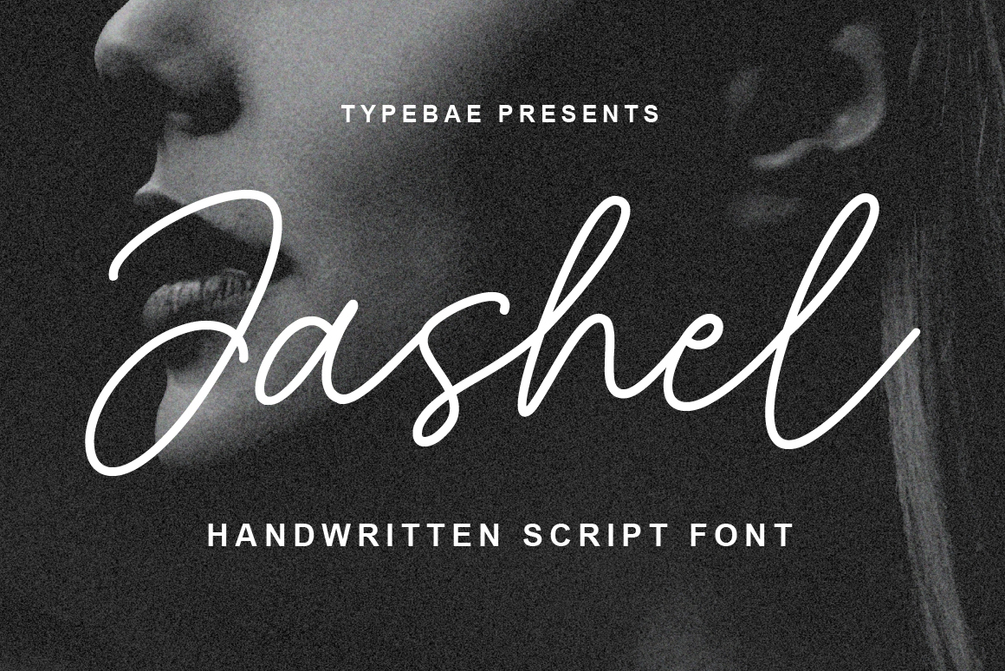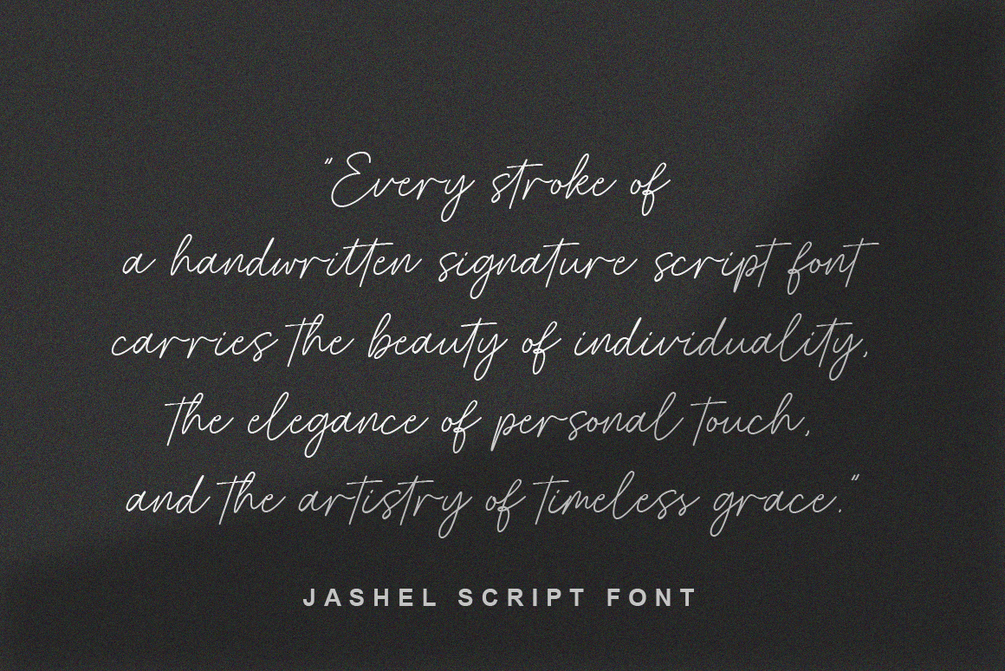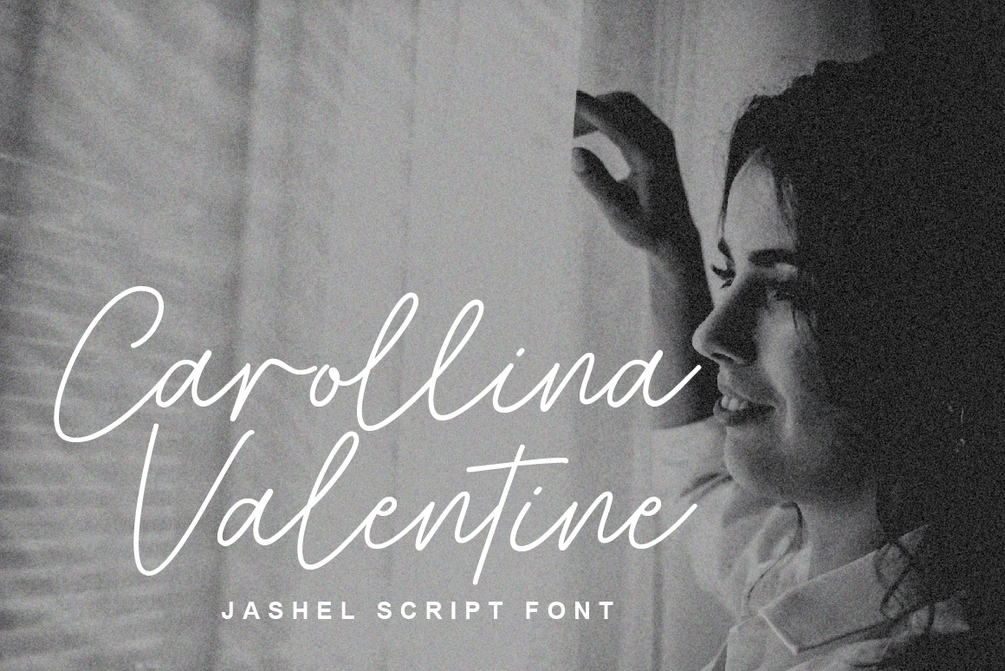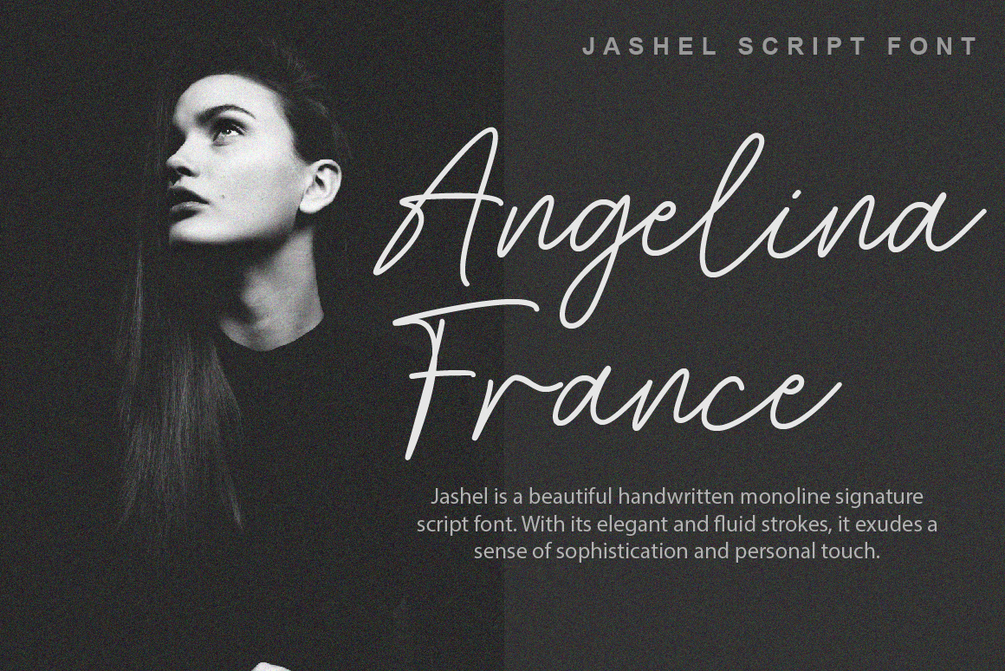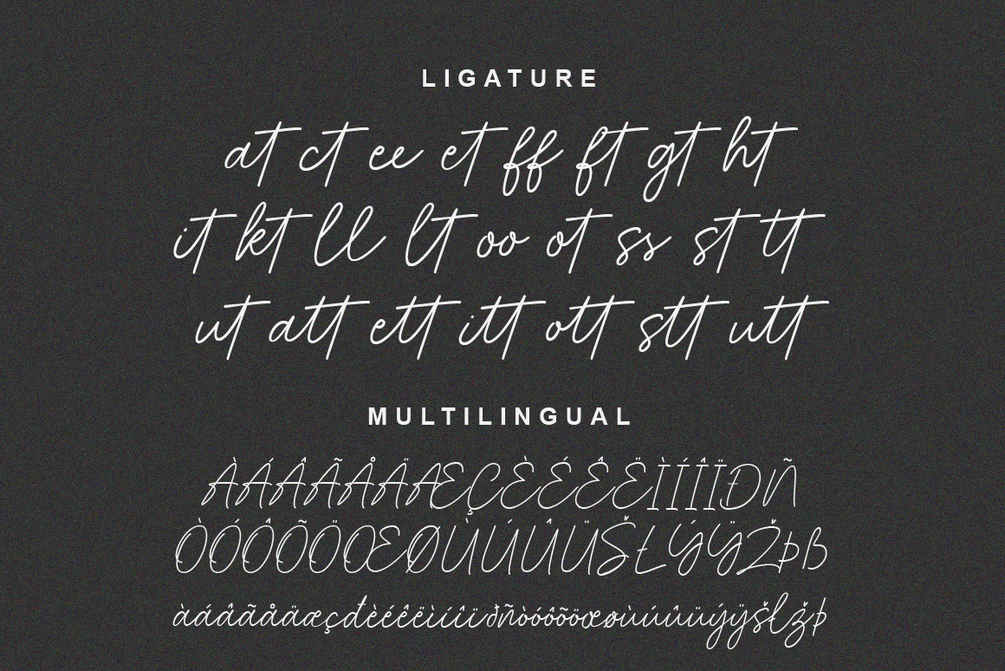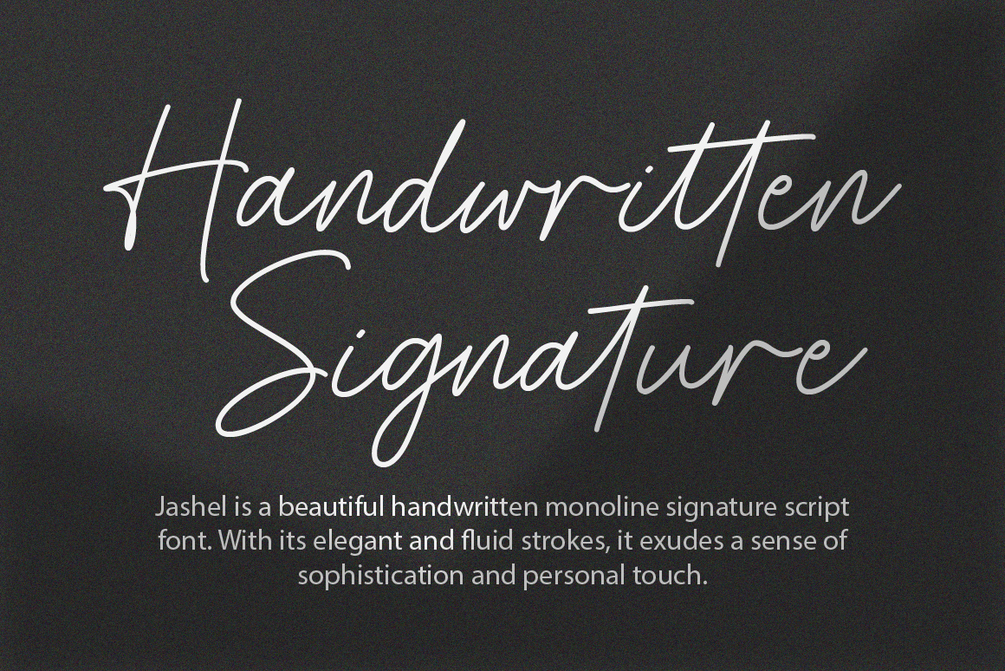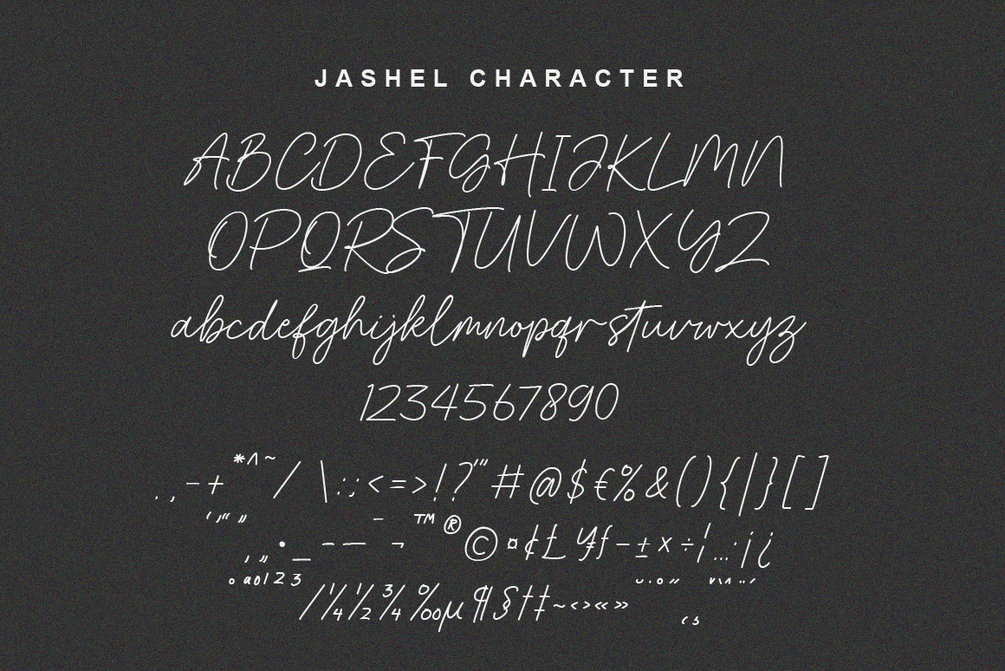
Jashel
Jashel Font is a stunning handwritten signature script font. With its graceful and flowing lines, this font closely resembles the strokes of a carefully crafted hand signature. Whether used for branding, logos, invitations, or other creative endeavors.
• Standard alphabet and punctuation
• Ligature feature
• Multilingual Support: Afrikaans, Basque, Breton, Catalan, Danish, Dutch, English, Finnish, French, Gaelic (Irish, Scots), German, Icelandic, Indonesian, Irish, Italian, Norwegian, Portuguese, Saami (Southern), Spanish, Swahili, Swedish.